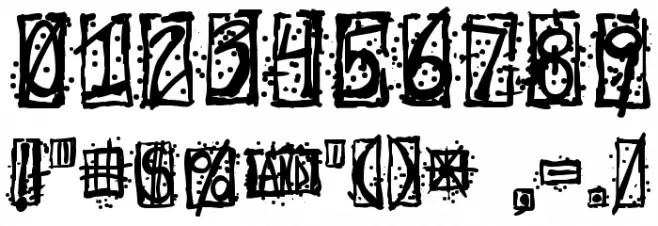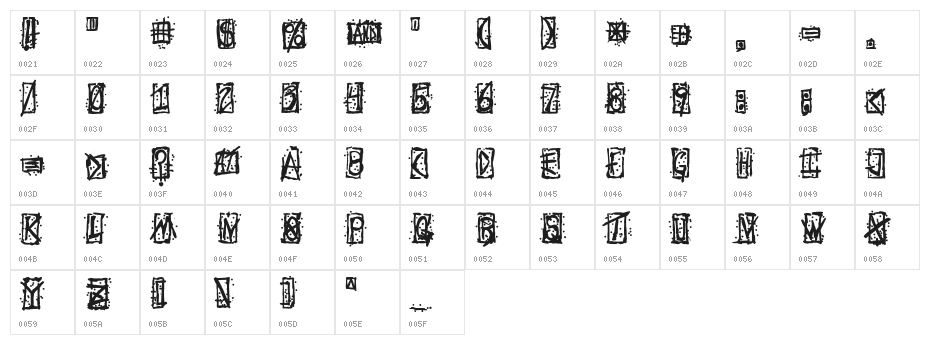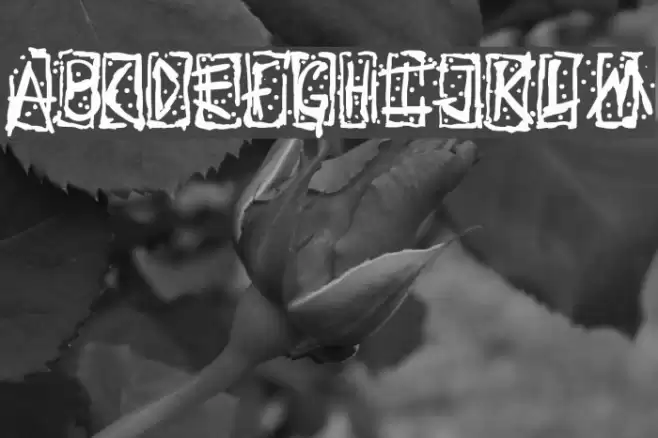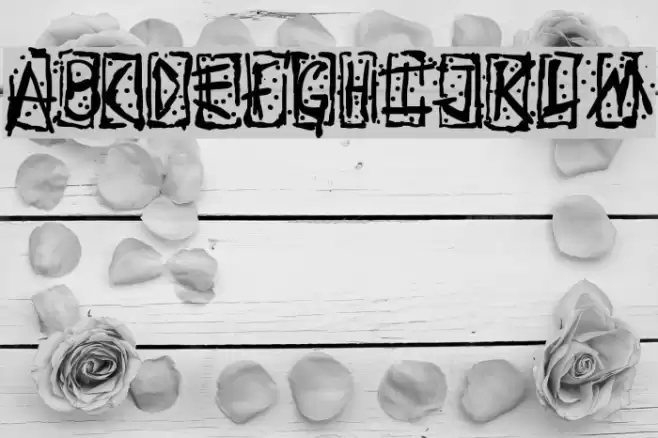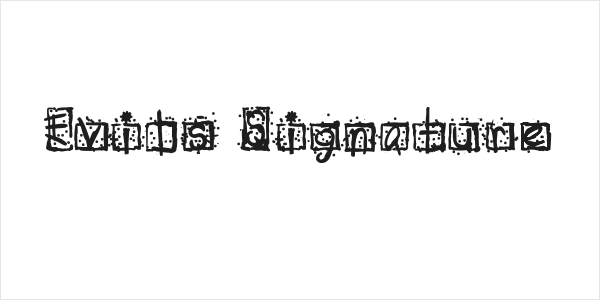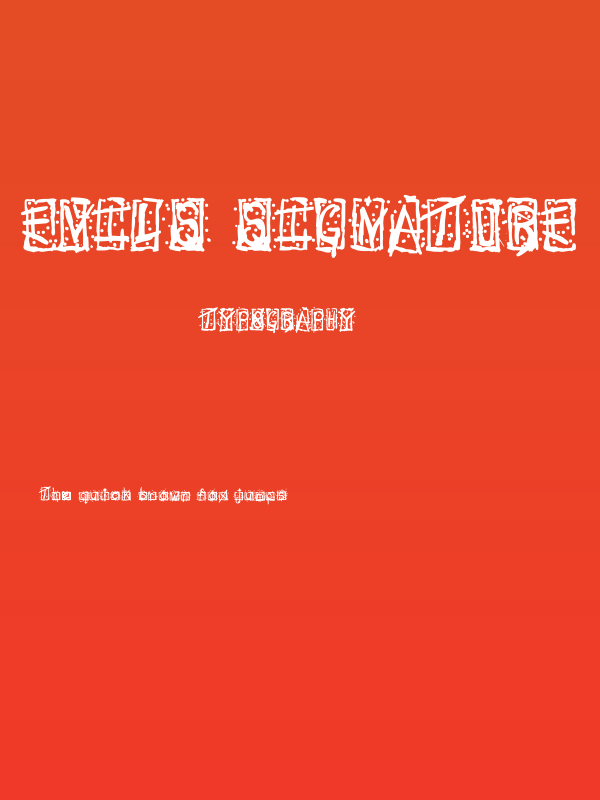
Evils Signature Font
Evils Signature Description
This font features a highly decorative and chaotic style, characterized by its jagged, irregular lines and splatter-like embellishments. Each character is encased in a rough, uneven outline, giving it a distressed and grungy appearance. The font's design is reminiscent of graffiti or street art, with an edgy and rebellious vibe. The uppercase and lowercase letters maintain a consistent theme, with exaggerated angles and a sense of movement. Numbers and special characters follow the same aesthetic, ensuring a cohesive look across all elements. This font is ideal for projects that require a bold, eye-catching statement.